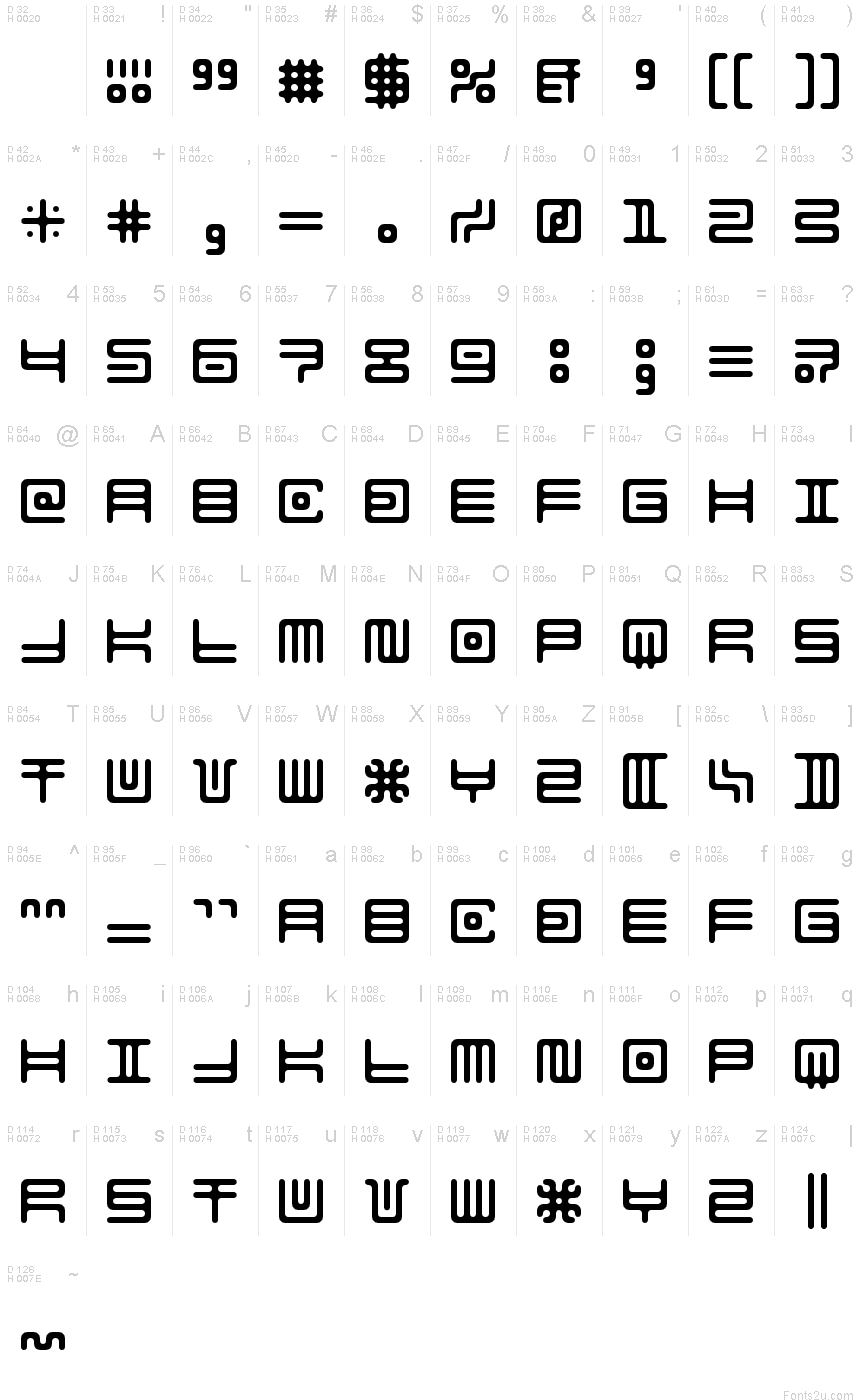
Alien double Regular
All letters have a few more lines than needed, which gives it a very alien feel. It is also monospaced.
“Alien double” was built with FontStruct